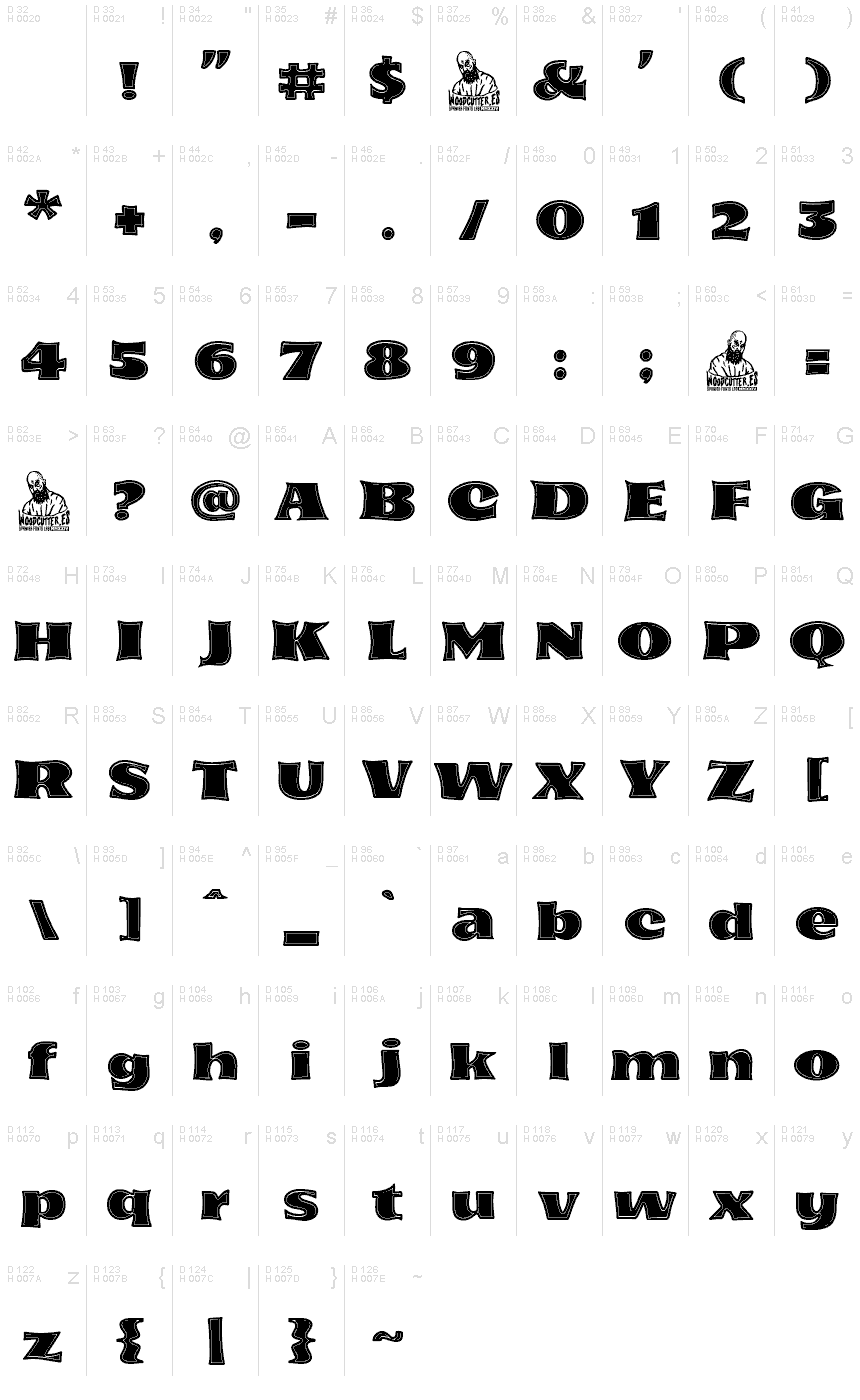
Minister of Lounge
Minister of Lounge font by Woodcutter is a free display font inspired by vintage typography. Decorated and expansive, it follows a style with expert linework and ending curves. Side to side, the lowercase and uppercase characters are sophisticated either when used alone or together. Their unique appearances make them instantly attractive which will come in handy for some projects.
Such projects would include music album covers, band or artist branding, song posters, tattoo ideas, business cards, postcards designs presenting logos and artwork of breweries or food products. Items such as t-shirts or hoodies can also benefit from this stylish typeface along with artistic wall decorations and personal/ public signage of coffeehouses.